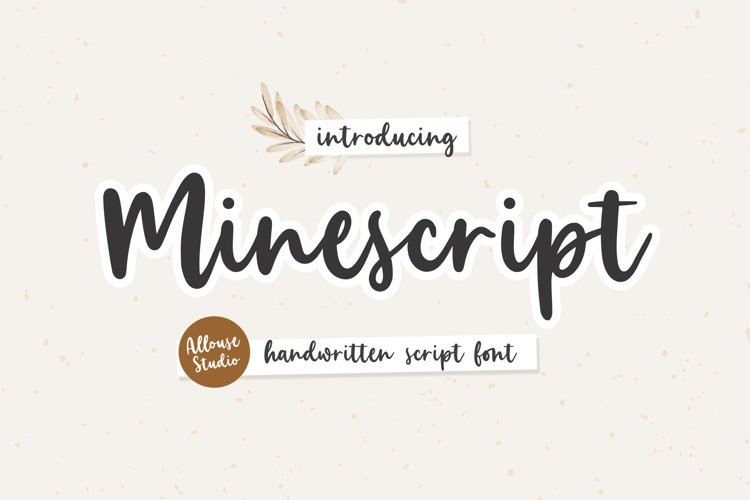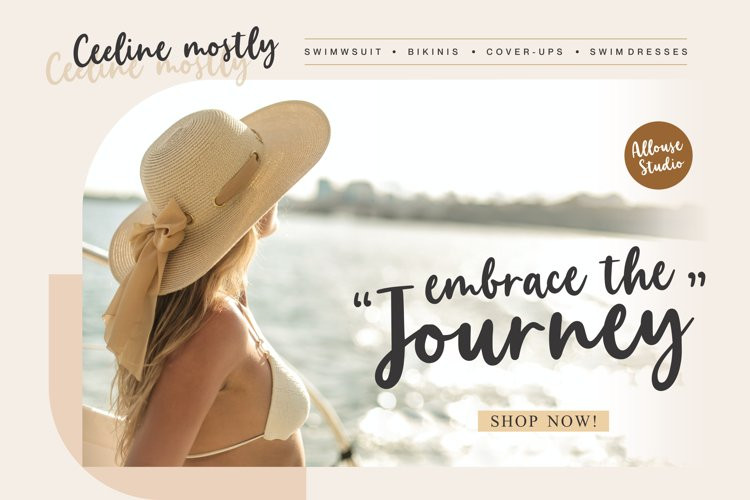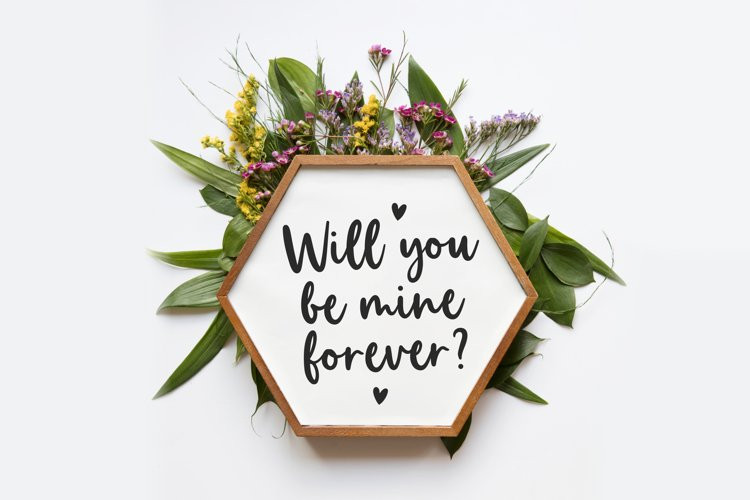
Minescript Font
Minescript FontIntroducing by Allouse.Studio
Proudly Present, Minescript
Minescript is A Handwritten Script Font
Minescript is perfect for product packaging, branding project, megazine, social media, wedding, or just used to express words above the background.